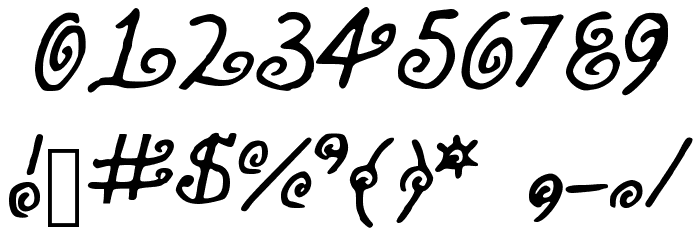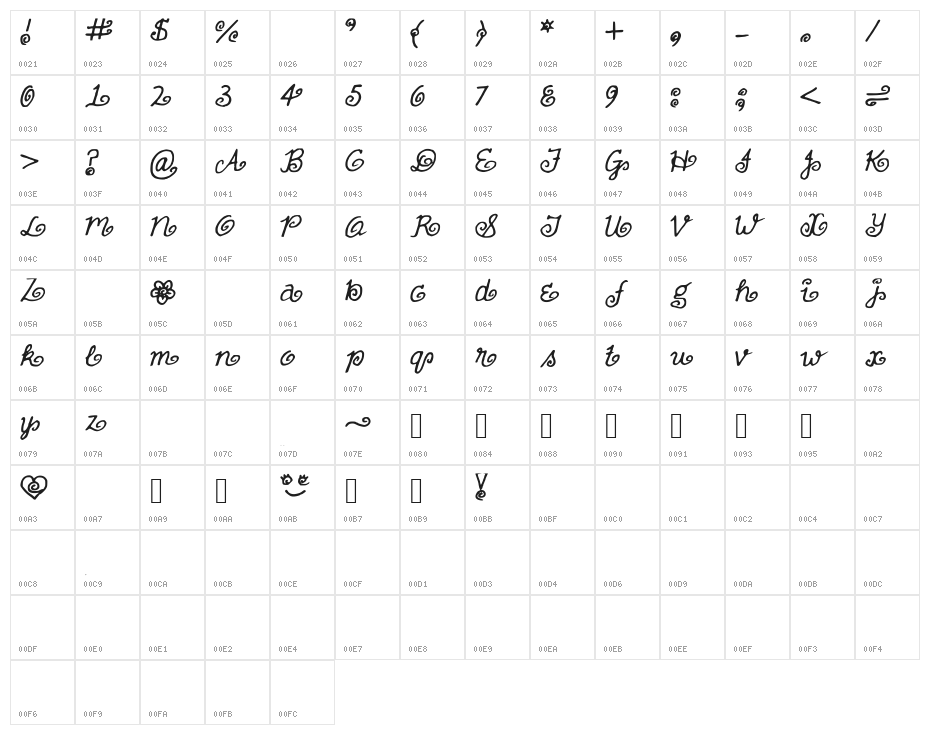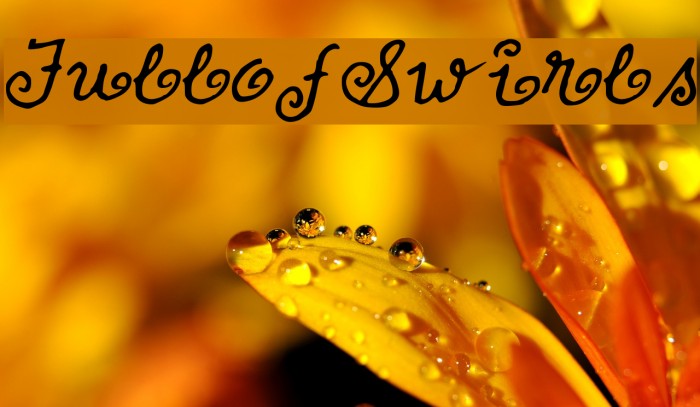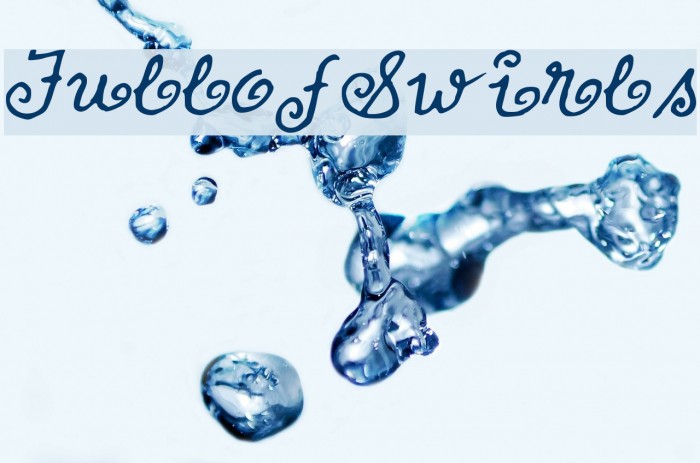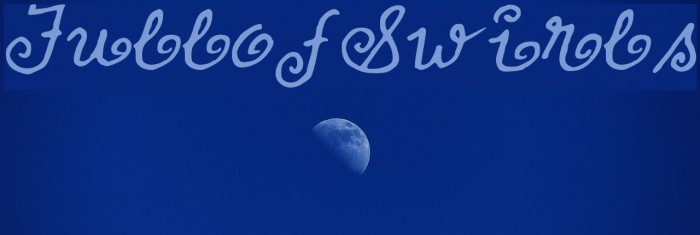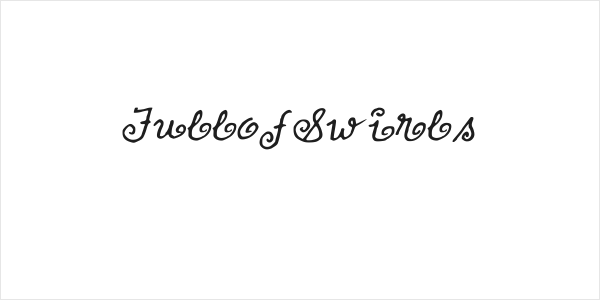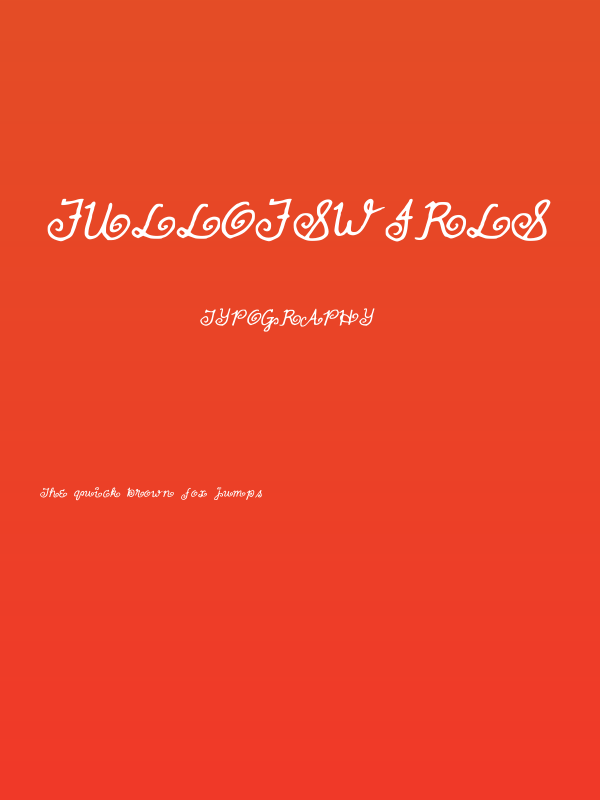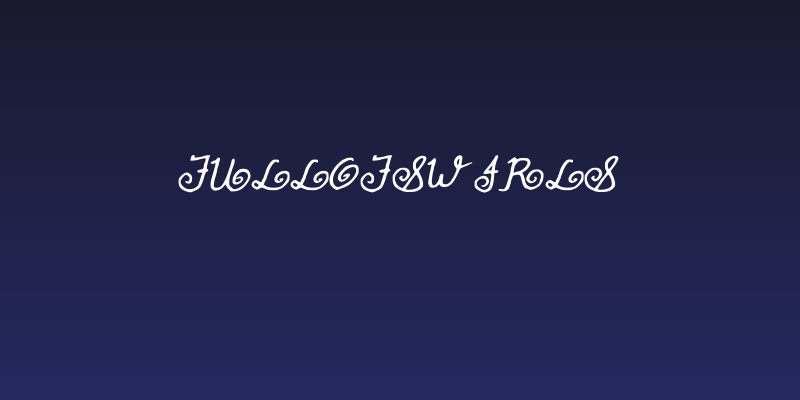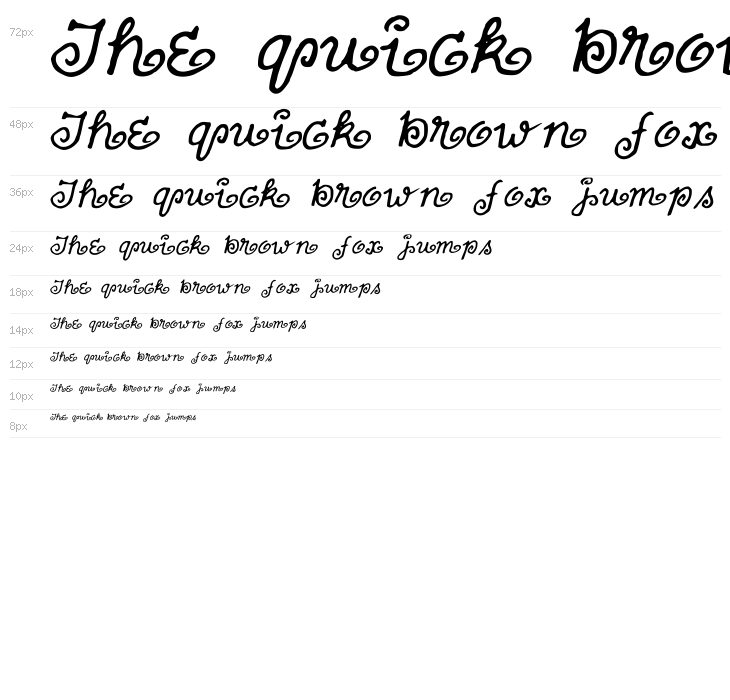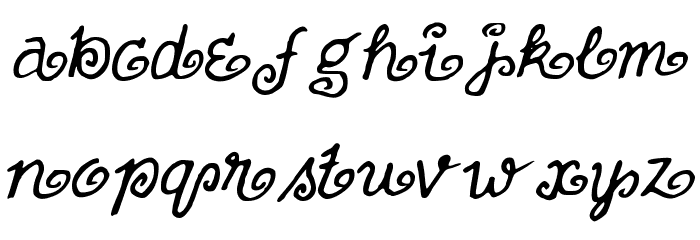
FullofSwirls Font
FullofSwirls Description
This font is characterized by its playful and whimsical design, featuring swirling and curling elements that give it a lively and dynamic appearance. The letters are interconnected with elegant loops and curves, creating a sense of movement and fluidity. The uppercase and lowercase letters maintain a consistent style, with each character exhibiting unique flourishes that add to the overall charm. The numbers and special characters are equally ornate, ensuring a cohesive look across all glyphs. This font is perfect for projects that require a touch of creativity and flair.